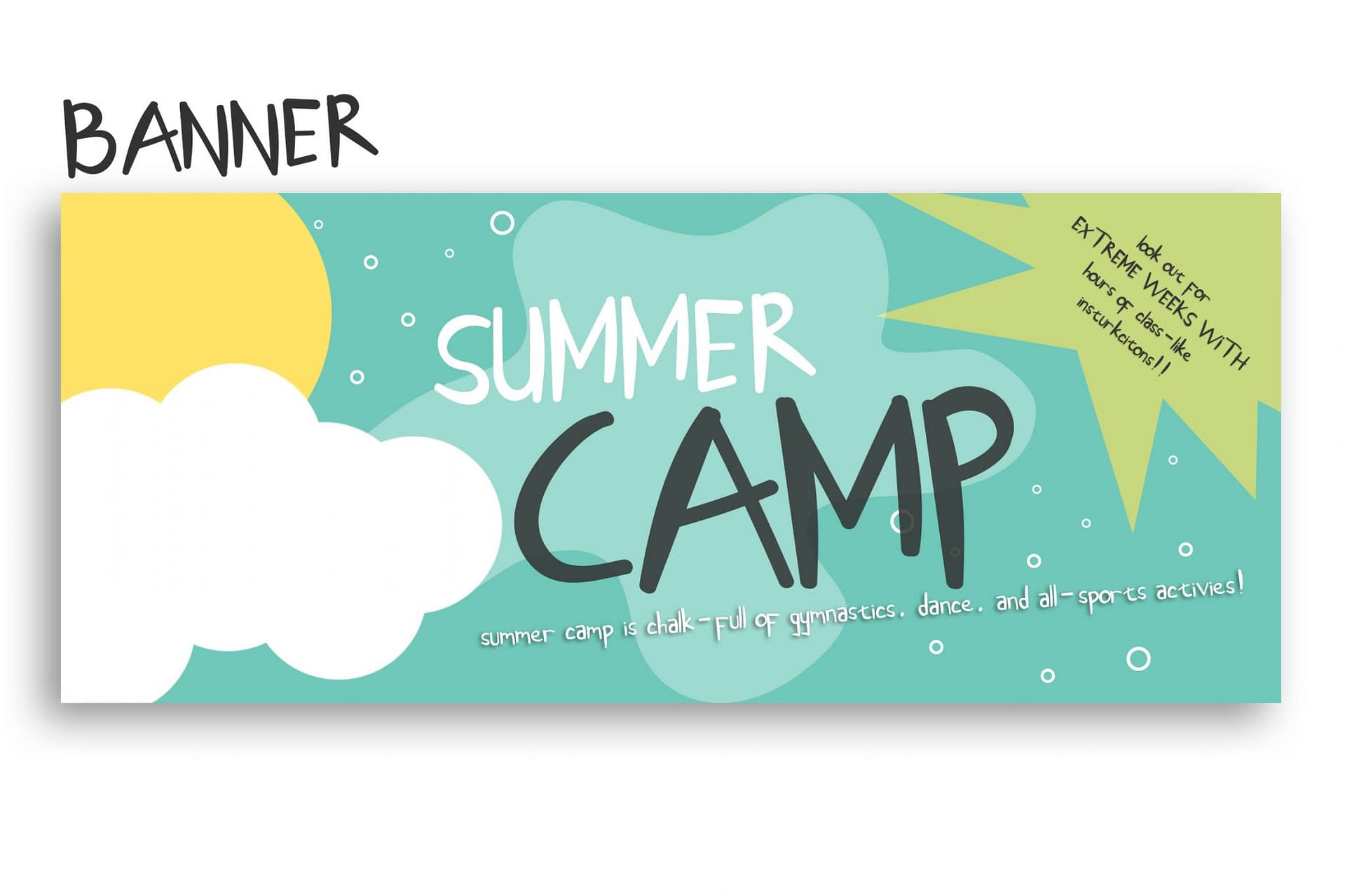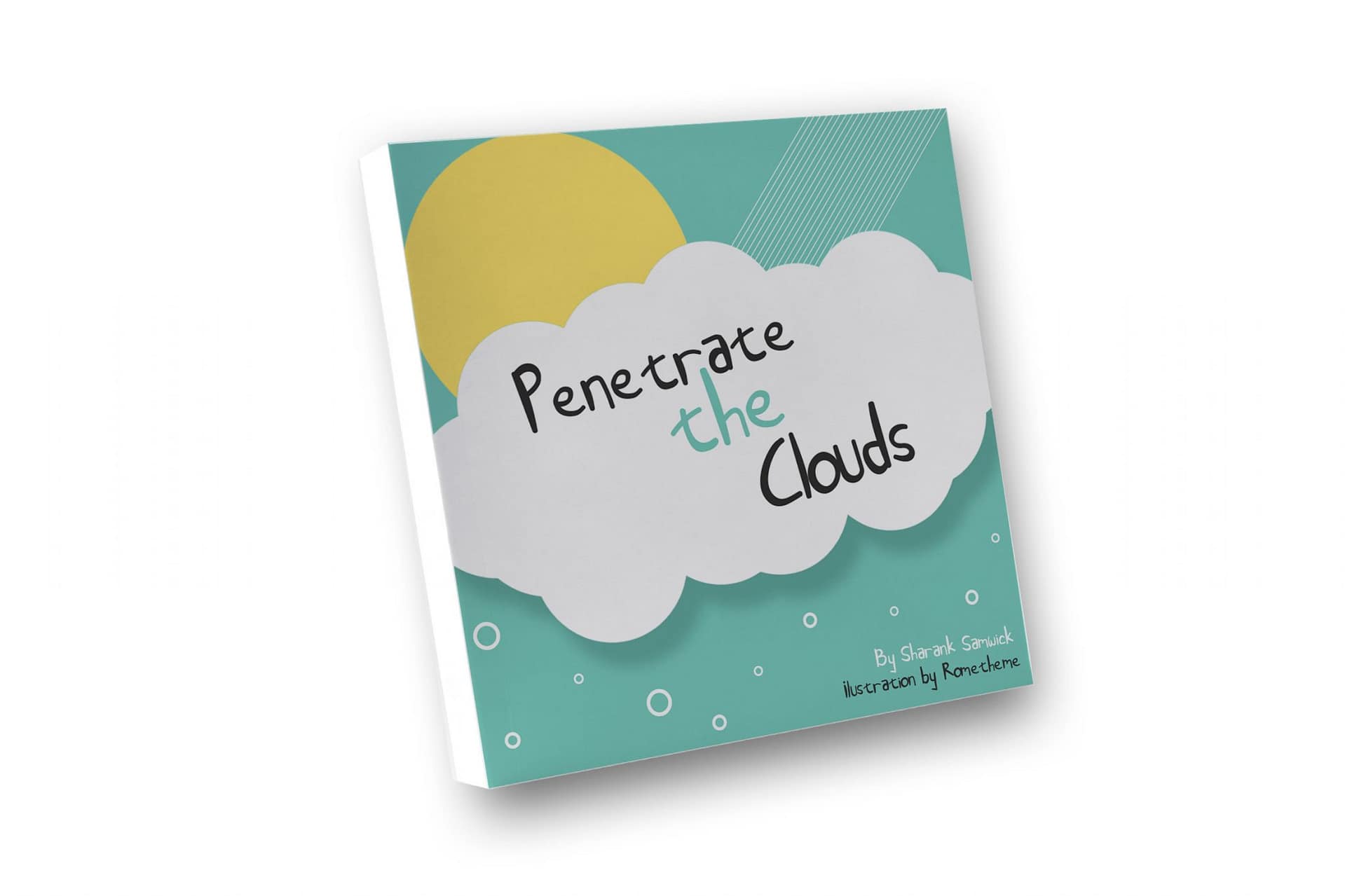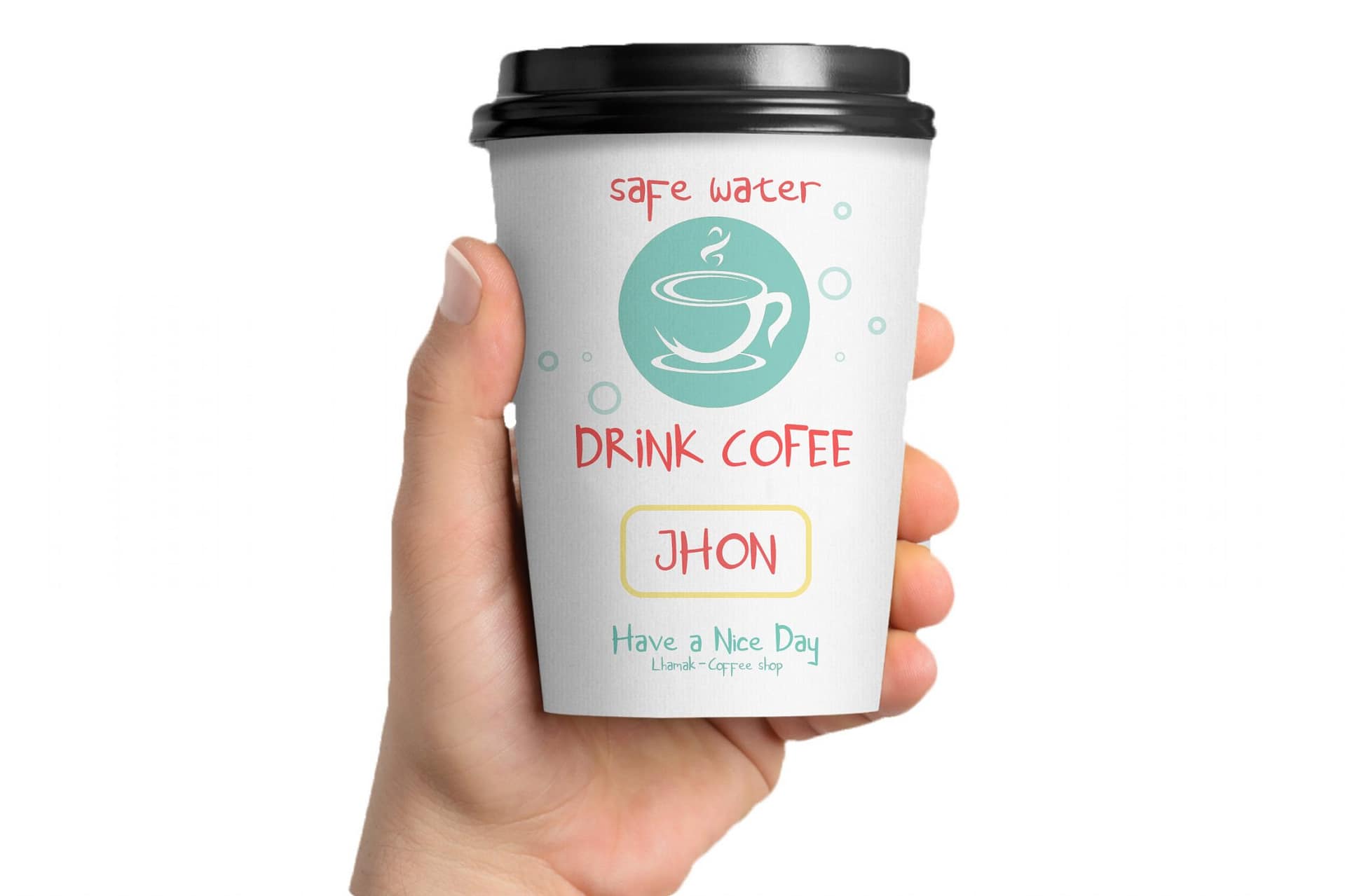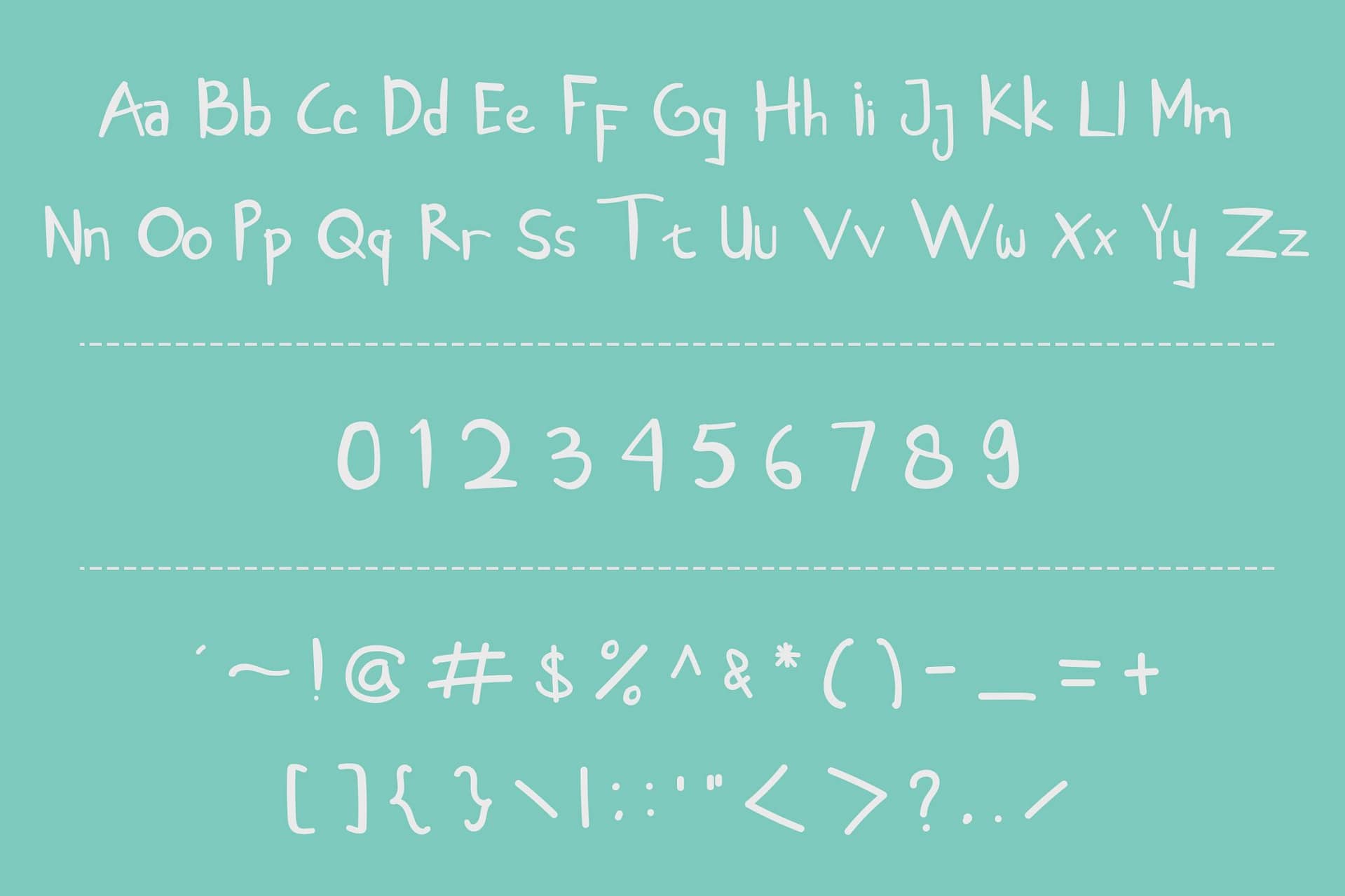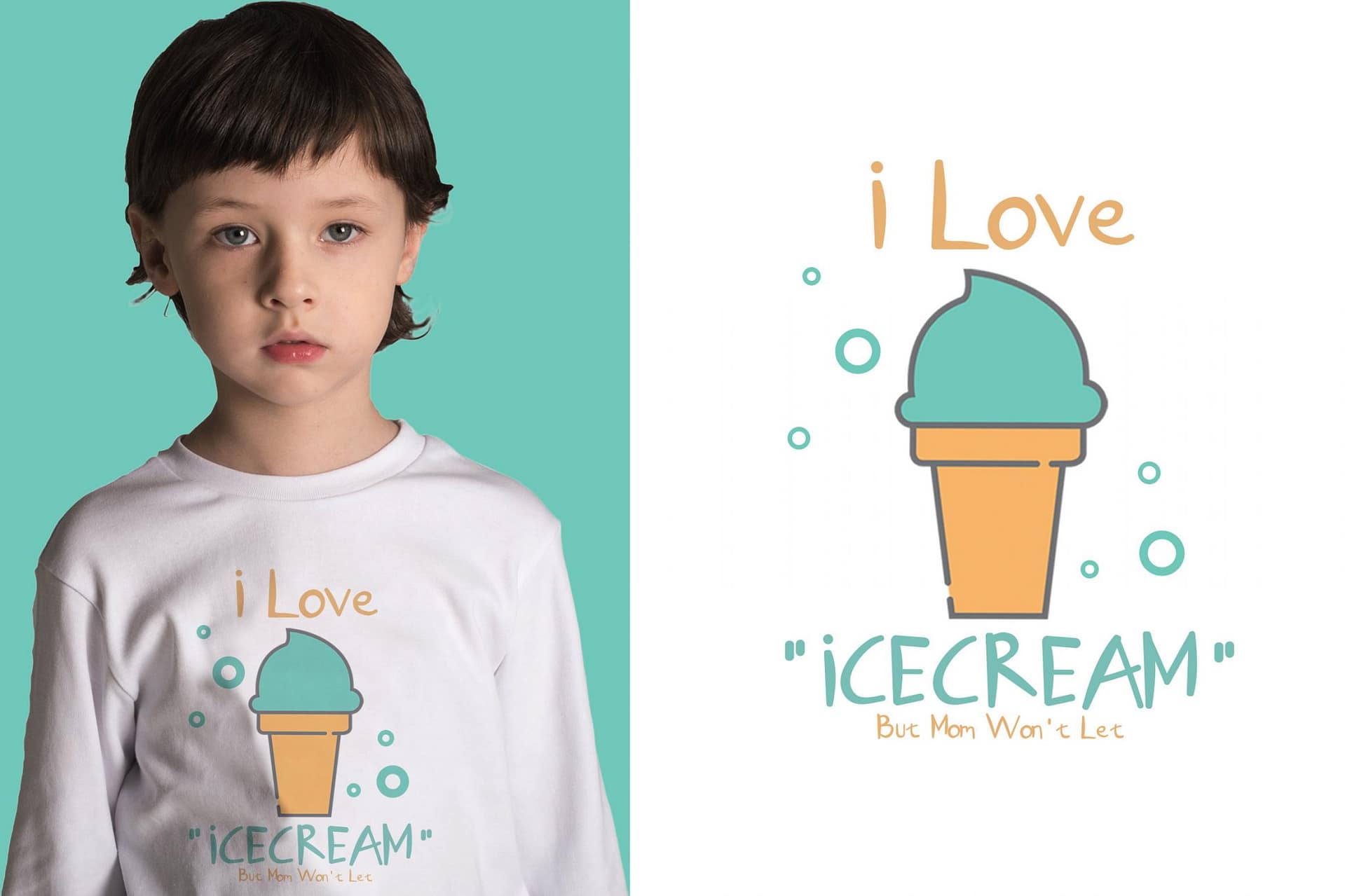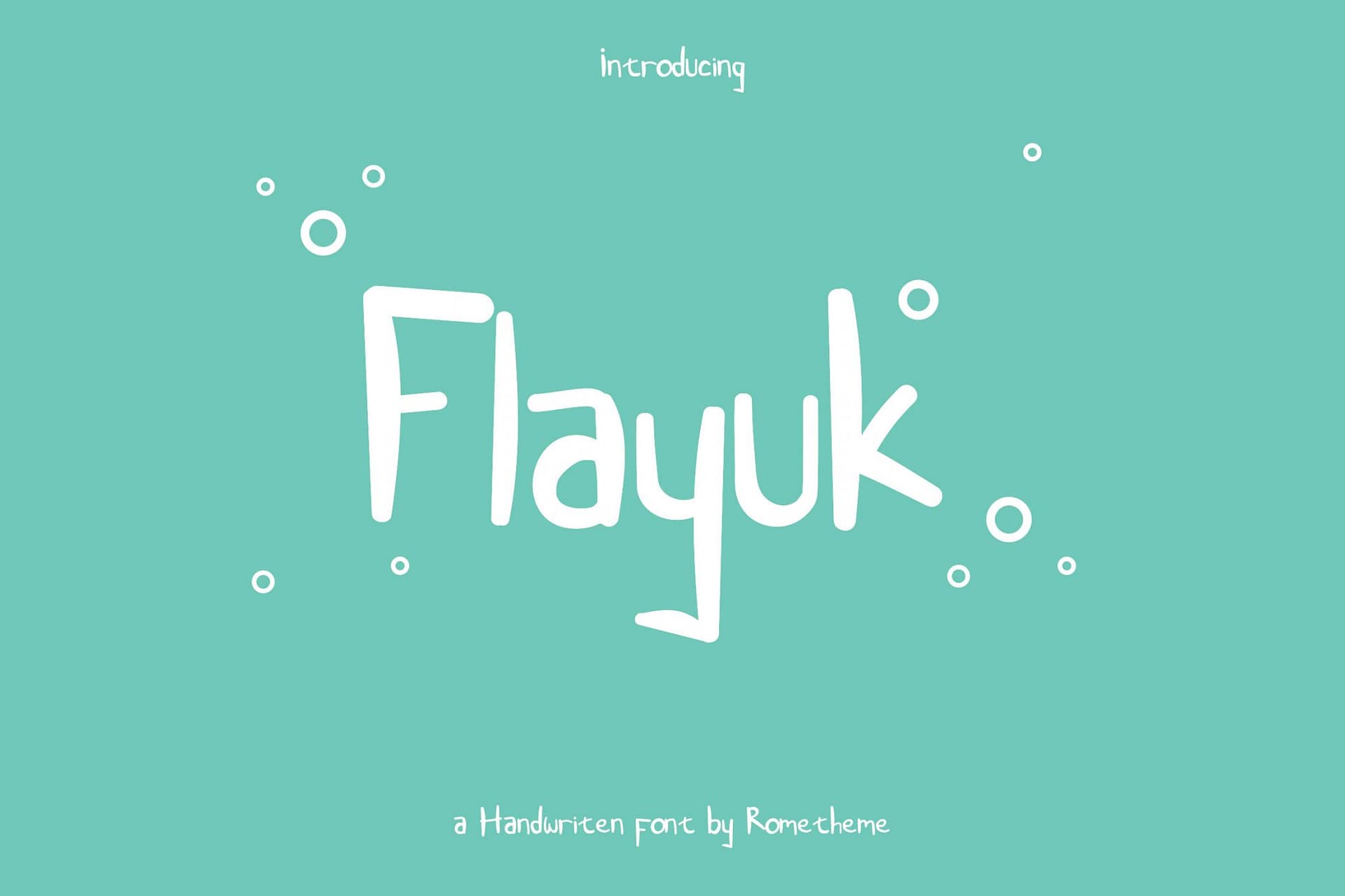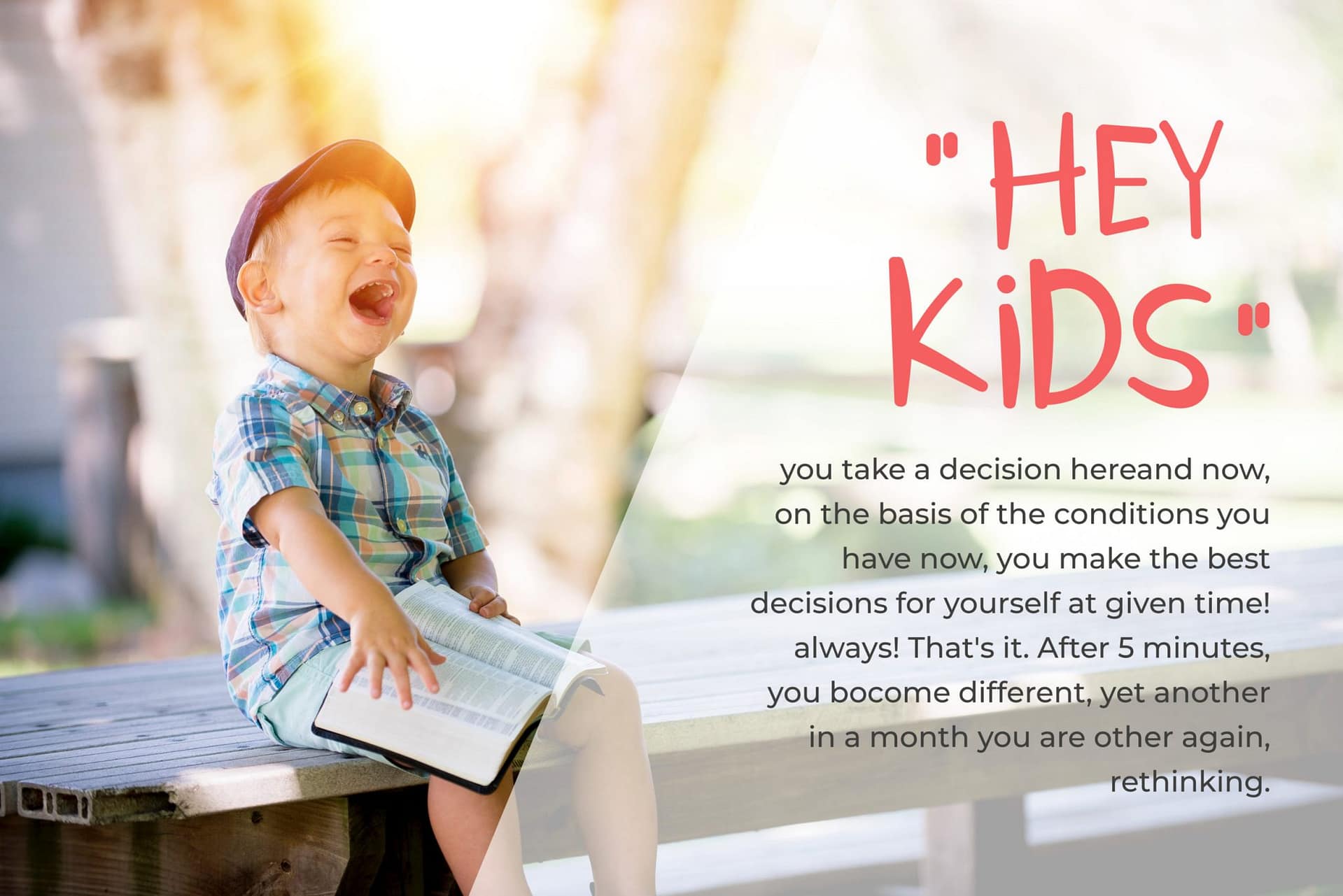
Flayuk is a handmade display font, this font looks funny, cute, kids, cartoon, playful, catchy and easy to use.
Flayuk Font is the best choice for your professional design projects, including : logo, poster design, t-shirt, headline, flyer, cd cover album, quotes, business card, branding, magazines, social media, advertisements, product designs, or something that need playful or cartoon looks
• Basic Latin A-Z and a-z
• Numbers
• Symbols
Flayuk – Handwritten Font